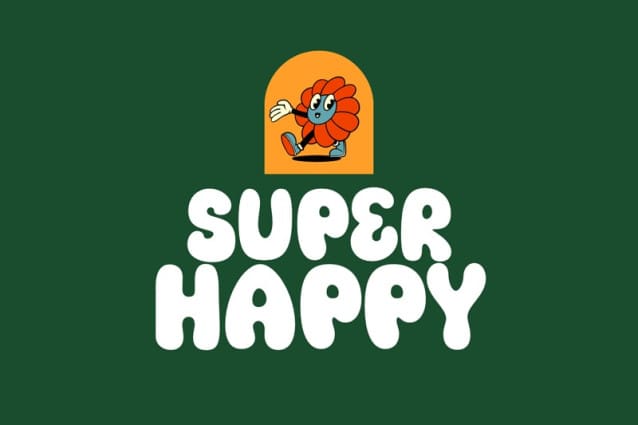
Super Happy Typeface
Super Happy Typeface, a font that bursts with sunshine and sparkles with delight. That’s SuperHappy! This exuberant typeface boasts playful, round curves and a bubbly personality that’s guaranteed to bring a smile to your face.